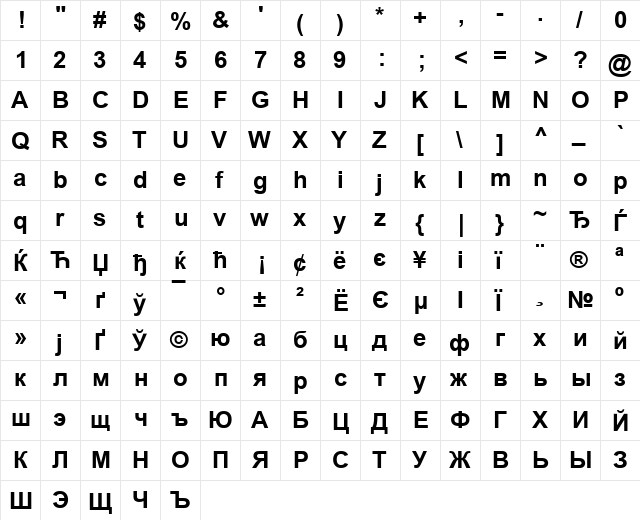
Arial KOI8 Bold
| Designer | Monotype Type Drawing Office - Robin Nicholas, Patricia Saunders 1982 |
Design Context for Arial KOI8 Typeface
Arial KOI8 takes a measured approach to typography — its balanced proportions and neutral character make it a reliable workhorse for both digital and print work. The heavy weight commands attention and anchors typographic hierarchies.